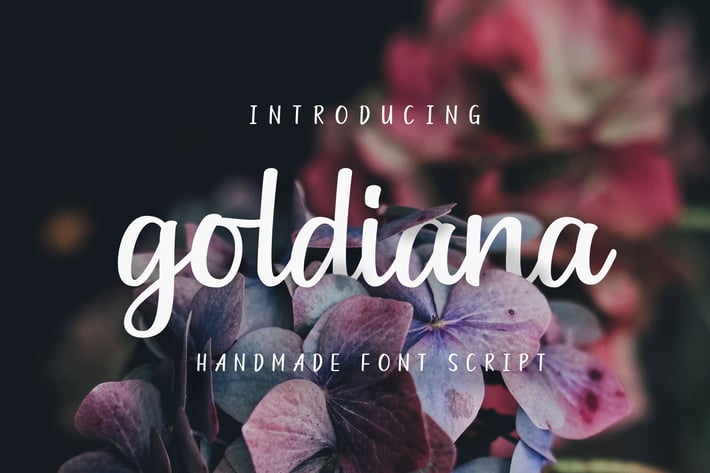
Goldiana - Font Script
We Provide You one of the best Hand Written Script. Best match for logos, header, Titles, Prints & other Creative process possibilities.
Create a Extraordinary Typography / lettering results by using Goldiana - Font script